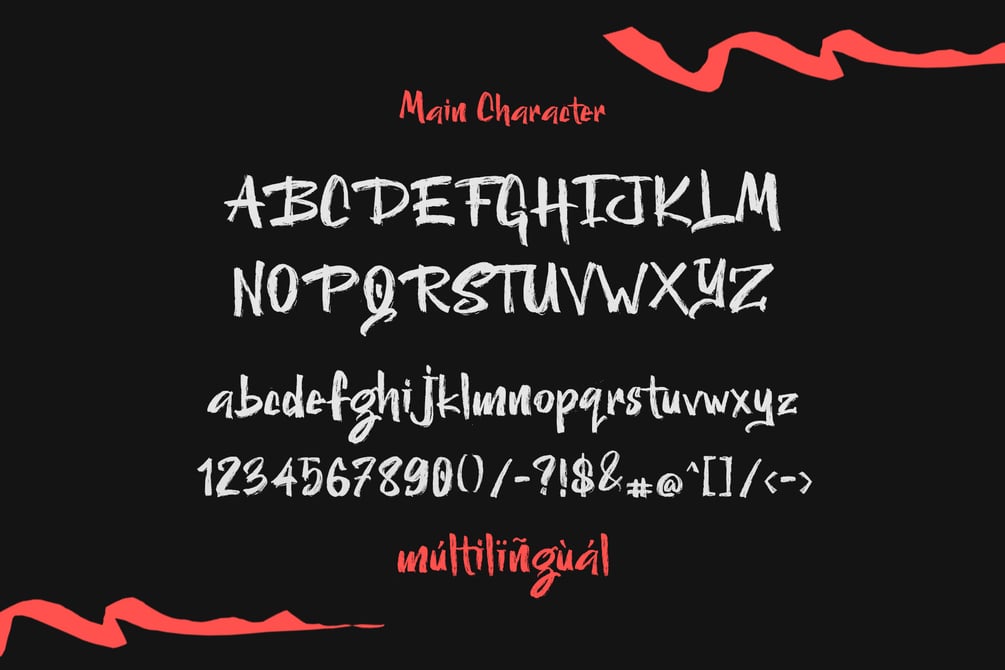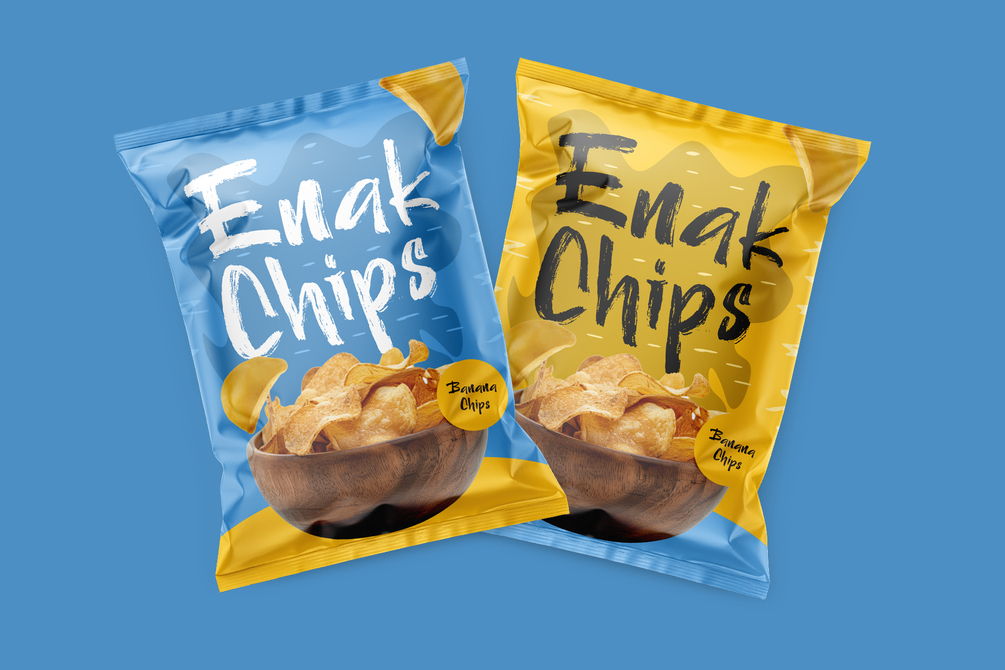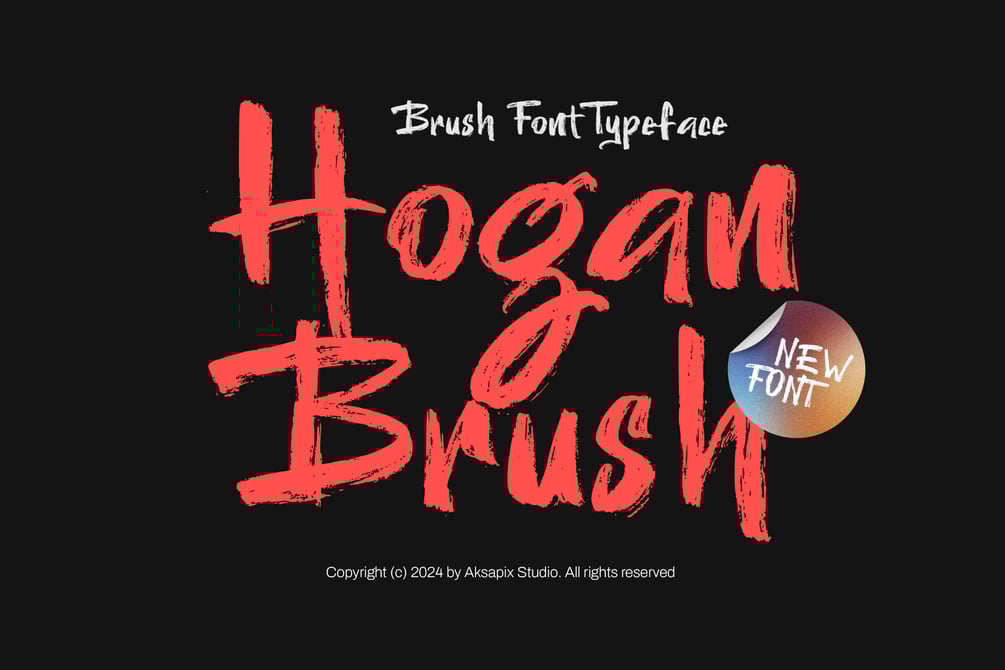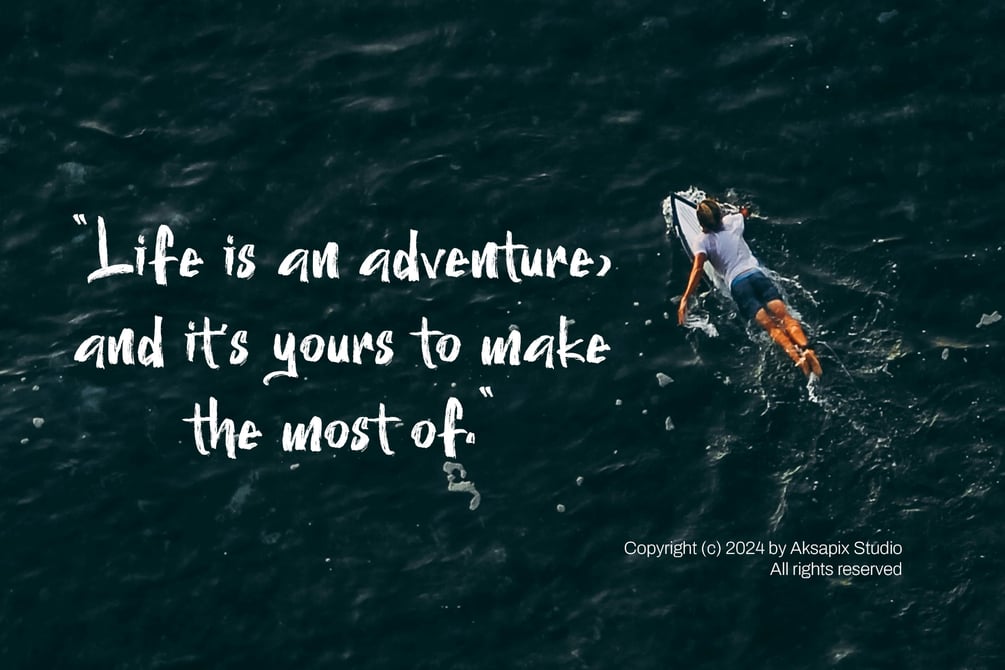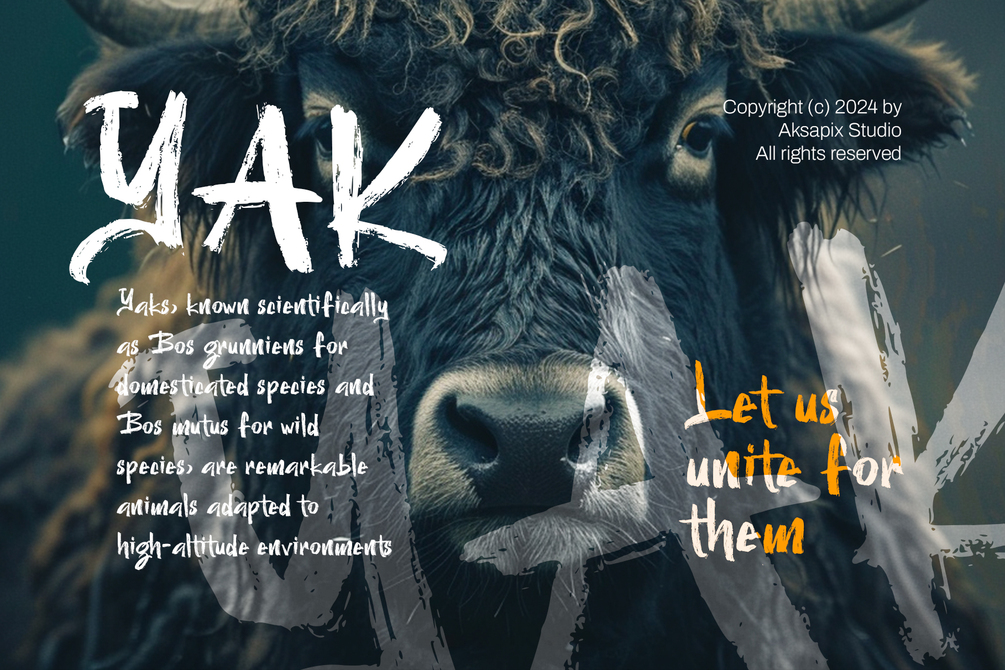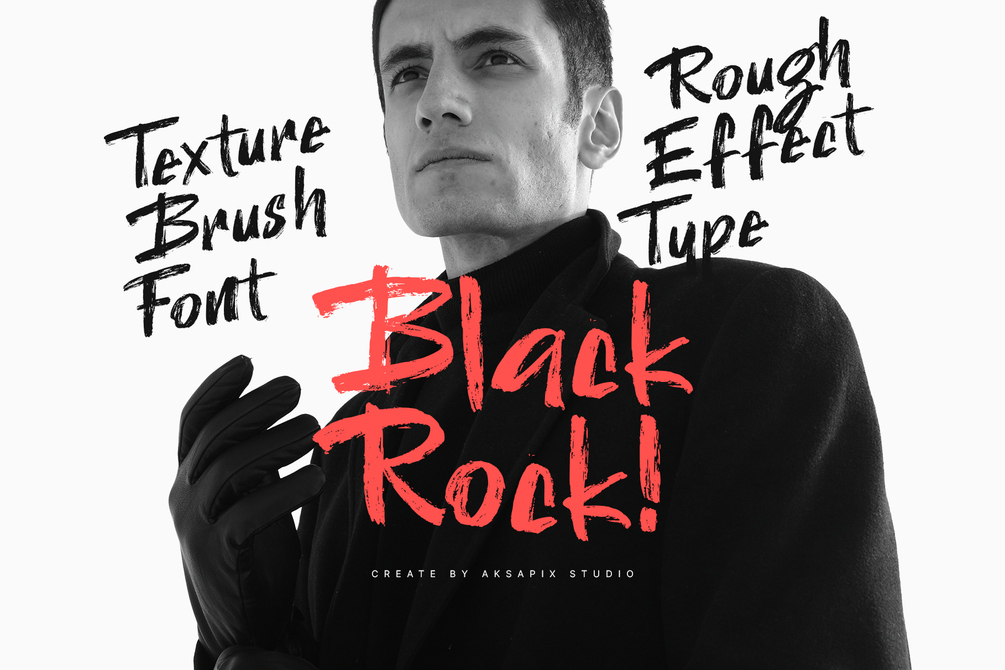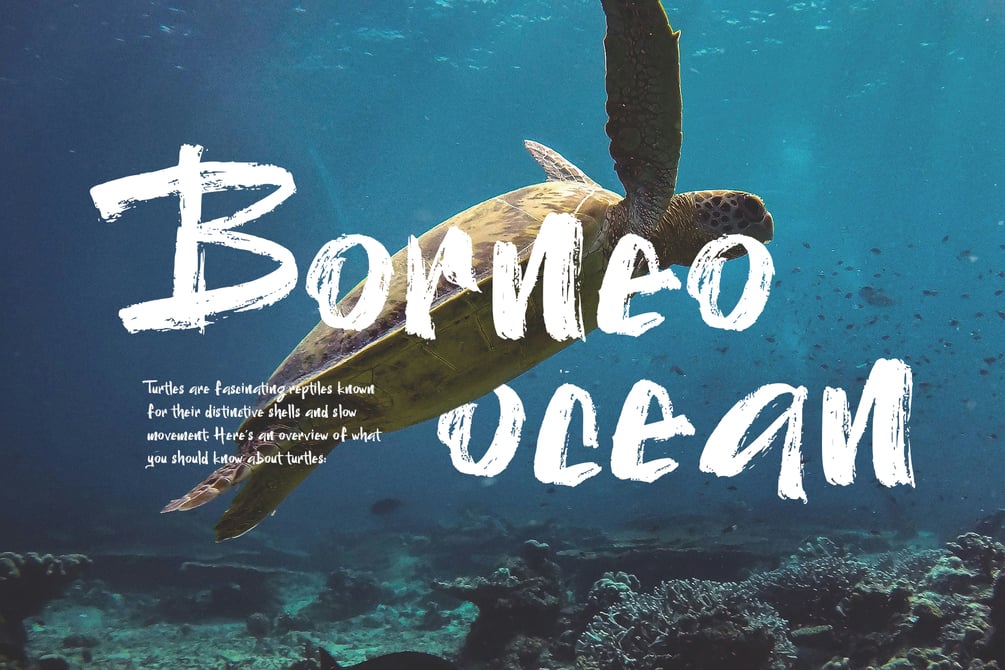
Hogan Brush - Brush Font Typeface
Introducing Hogan Brush - Brush Font Typeface, a bold and energetic typeface that captures the raw beauty of brush strokes. Hogan Brush is designed to bring a handcrafted, artistic touch to your designs. With its authentic texture and dynamic flow, this font is perfect for projects that demand a unique and impactful look. Hogan Brush includes a full set of standard characters (uppercase, lowercase, numbers, and punctuation) and offers multilingual support, ensuring versatility and wide usability.
Features:
• Uppercase & Lowercase
• Punctuation & Numbers
• Multilingual Support
Perfect For:
• Posters and Flyers
• Logo Design
• T-shirt Prints
• Social Media Graphics
• Creative Packaging
Make a statement with Hogan Brush - Brush Font Typeface. Whether you're crafting a striking poster, a bold logo, or an engaging social media graphic, Hogan Brush adds a distinctive and artistic edge to your work.